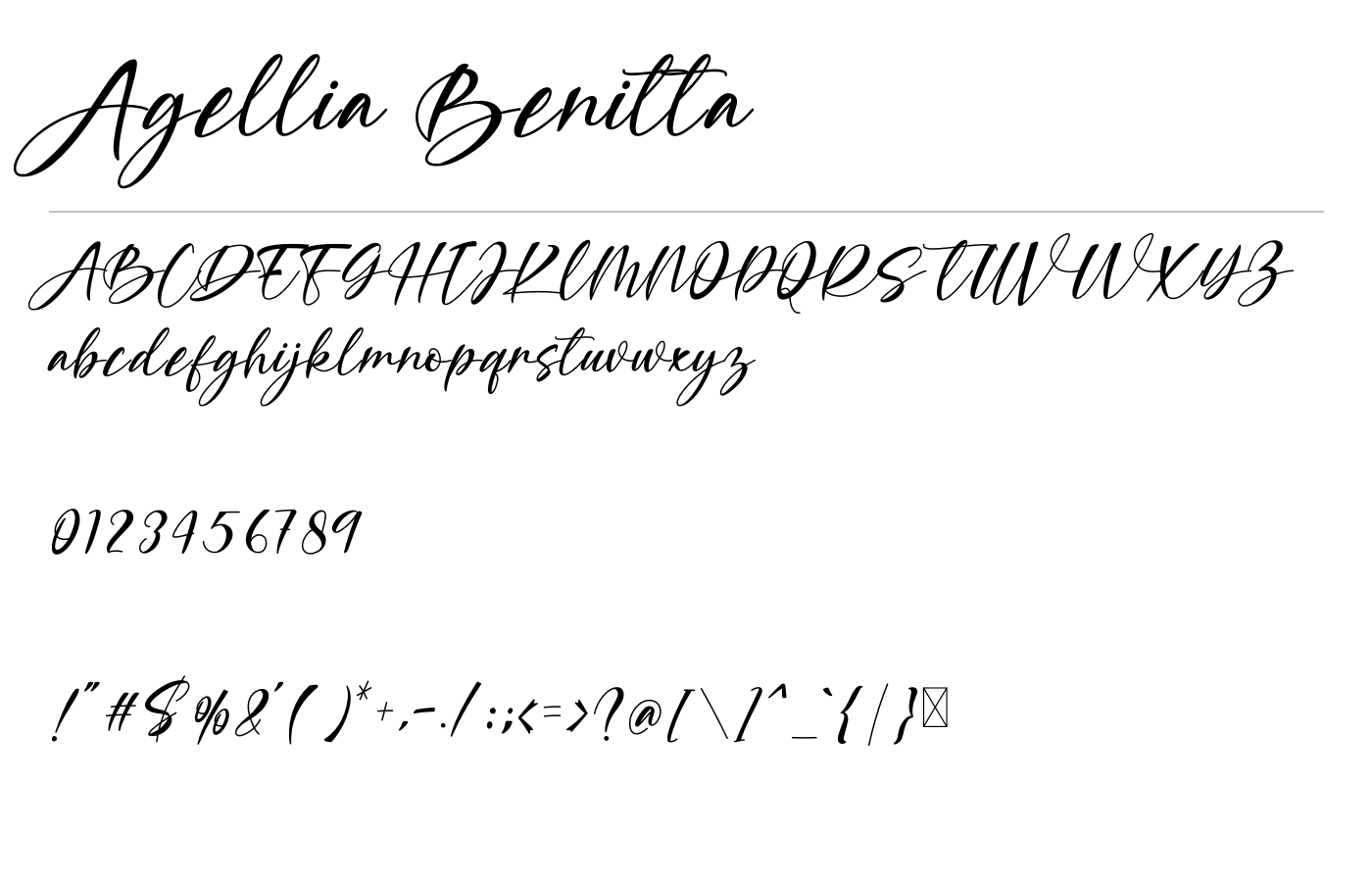
Agellia Benitta is a graceful script font featuring elegant, flowing letterforms with a natural, hand-written feel. Its slender strokes and smooth curves make it ideal for classy branding, wedding invitations, and feminine designs where a touch of sophistication and warmth is desired. This font shines in display use, adding a personal yet refined flair to logos and headlines.
Agellia Benitta Font
About Agellia Benitta Font